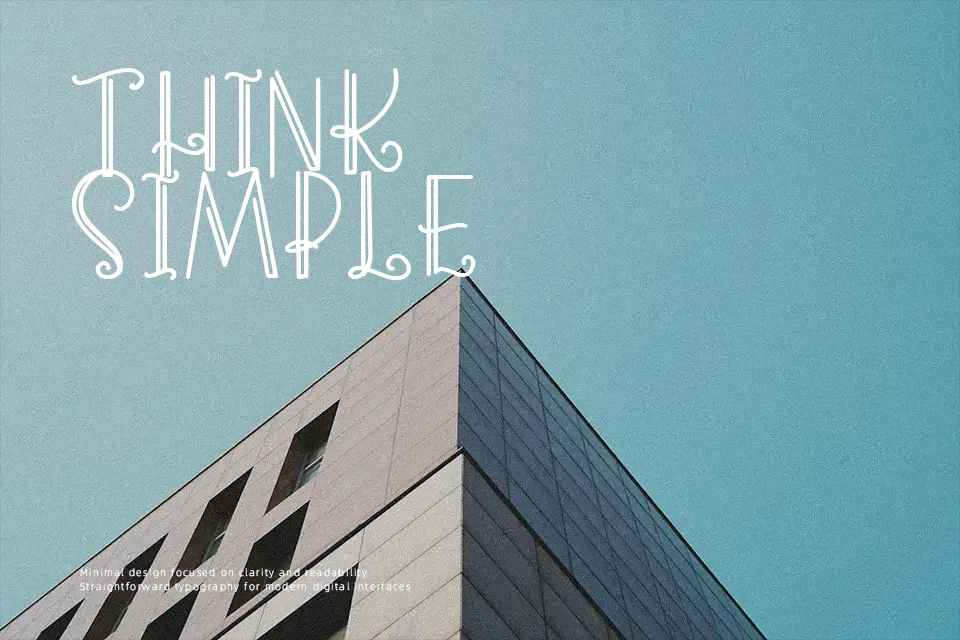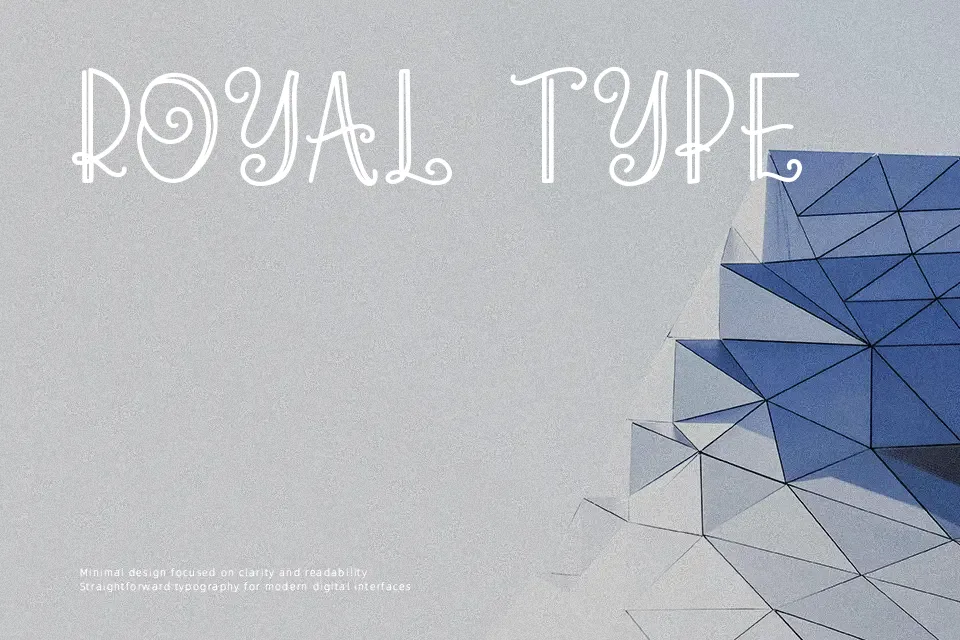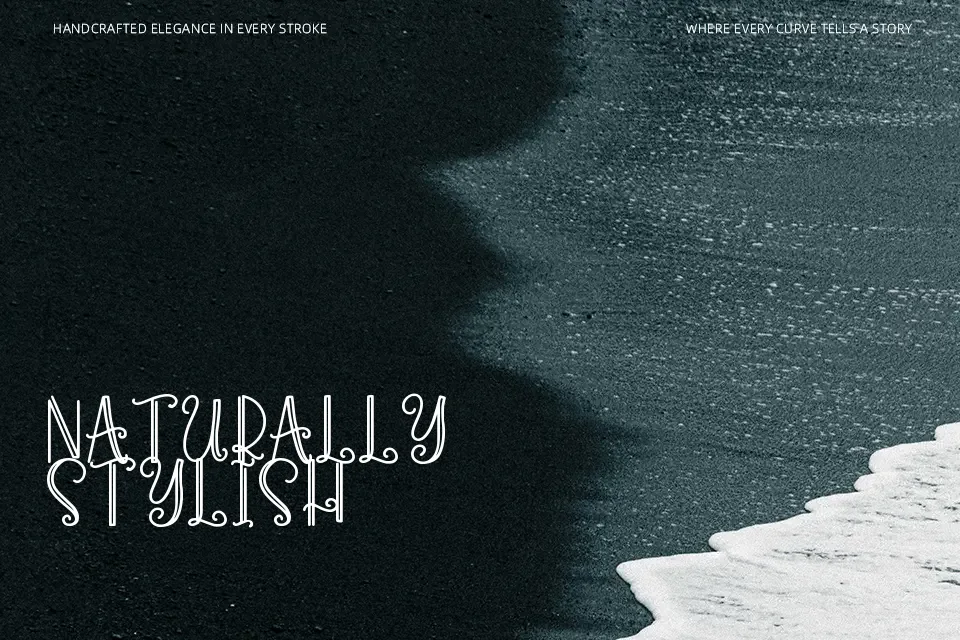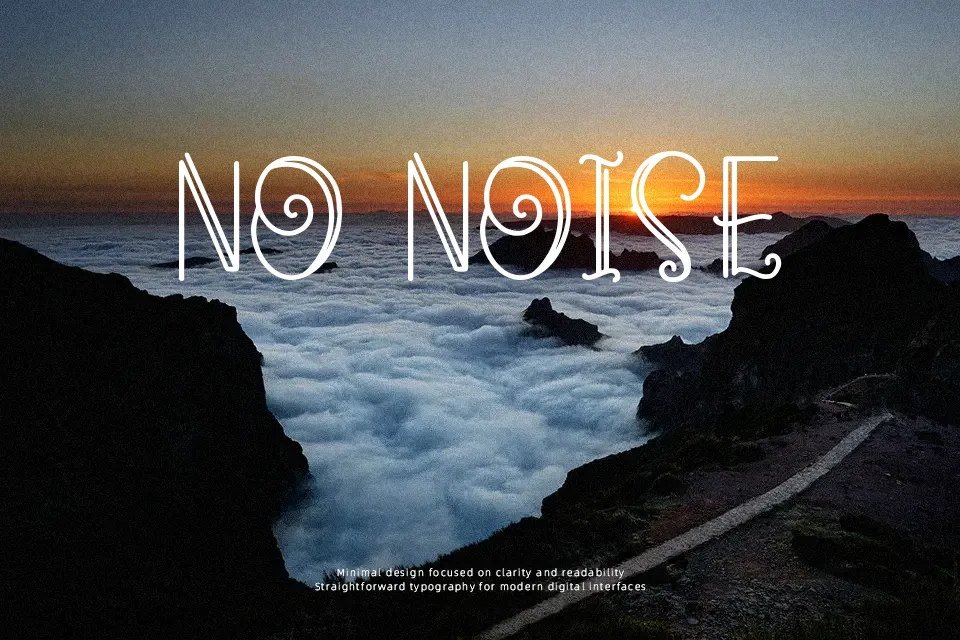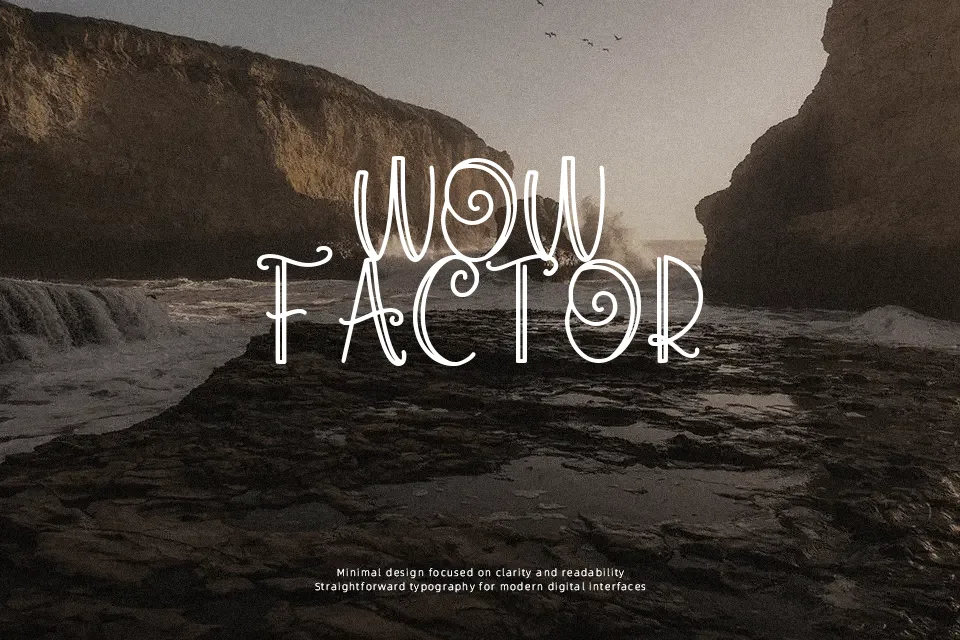
Cherry Parsley Font
Cherry Parsley Font is defined by looping terminal flourishes, uneven baseline bounces, and lively curved strokes across its uppercase character set. The letterforms feature moderate stroke weight with delicate tapering along the swirled tails, giving the glyphs an animated rhythm. Generous tracking prevents adjacent ornamental loops from colliding, though the intricate curls demand substantial breathing room. The design functions exceptionally well for boutique signage, custom merchandise, and party invitations set at display scales. However, the heavy decorative ornamentation causes character confusion at small text sizes, making the typeface impractical for multi-line body paragraphs or mobile interface captions.
Best For: greeting card headlines,boutique packaging labels,party invitation banners,craft vinyl projects
Not Ideal For: continuous body text,mobile user interface labels,dense editorial layouts,legal documentation
Perfect for branding, headline, and invitation, with a artistic and decorative style.